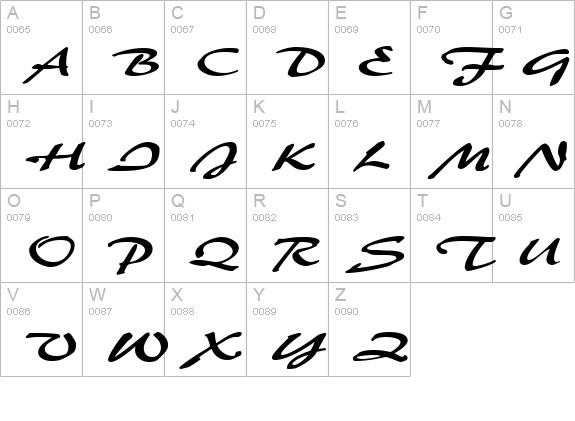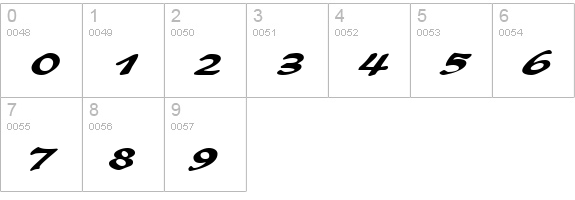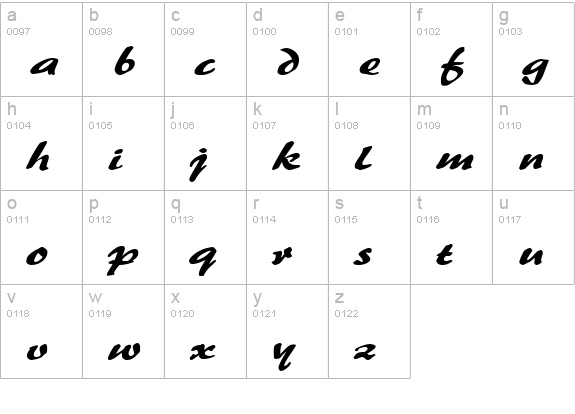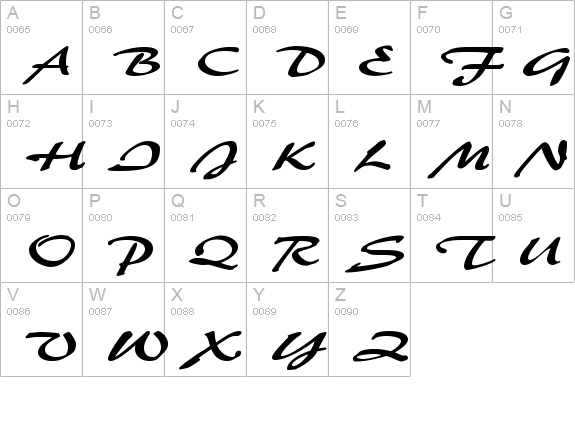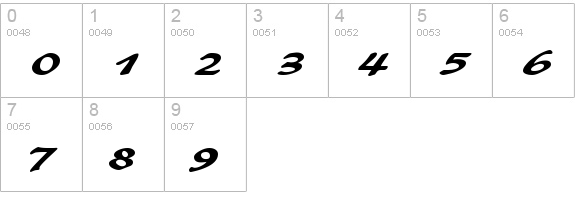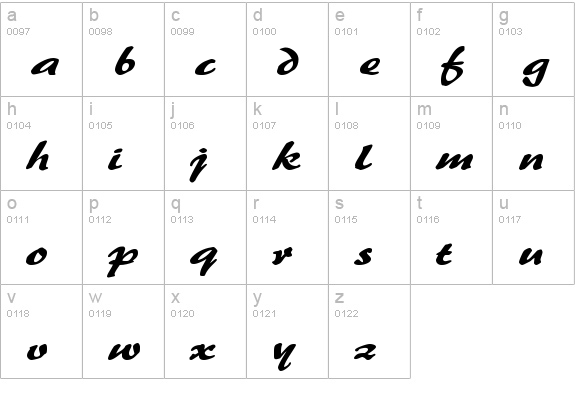
BrushFlashExpanded Regular is the standard, neutral variant in the BrushFlashExpanded typeface family \xE2\x80\x94 well suited to general body text, paragraphs, and standard typographic work.
Introducing BrushFlashExpanded Regular font, a dynamic and expressive typeface that adds flair and creativity to any design project. This font exudes energy and movement with its bold strokes and playful curves, making it perfect for posters, logos, and other eye-catching designs. BrushFlashExpanded Regular is a versatile font that can be used for various purposes, from branding to social media graphics. Its unique style and modern aesthetic will surely make your designs stand out. The best part? BrushFlashExpanded Regular is available for free download at FontsMarket.com. Don't miss out on this opportunity to add a touch of excitement to your projects with this amazing font. Download it now and let your creativity shine!